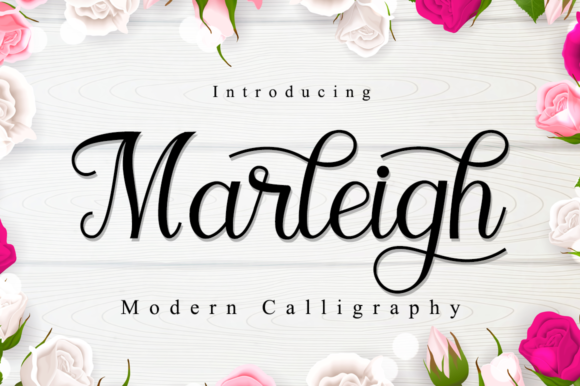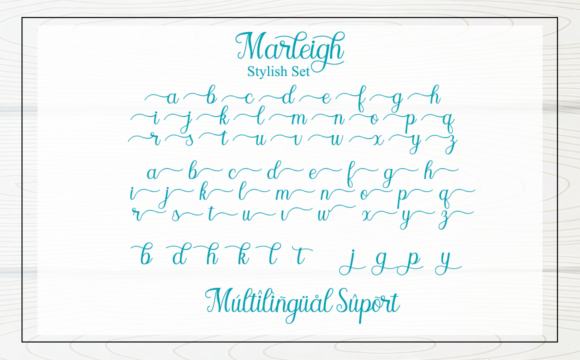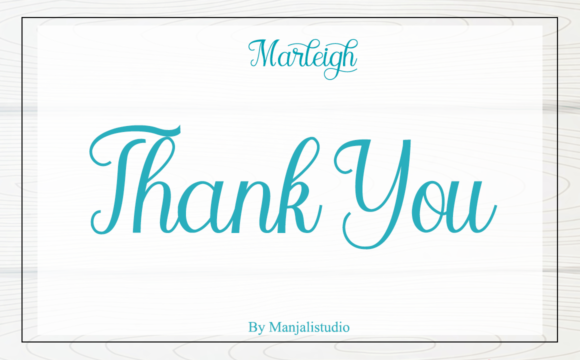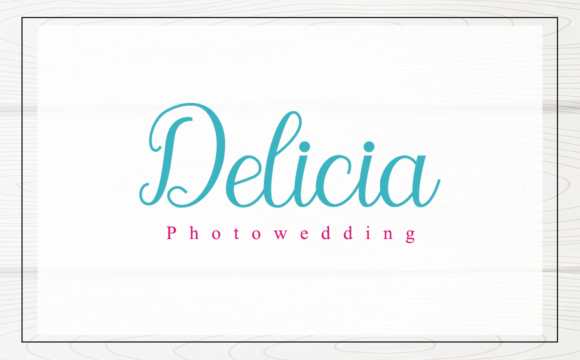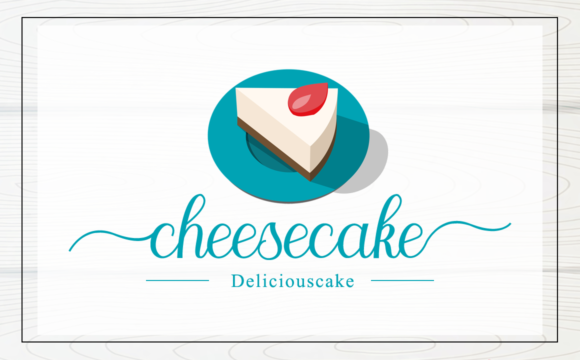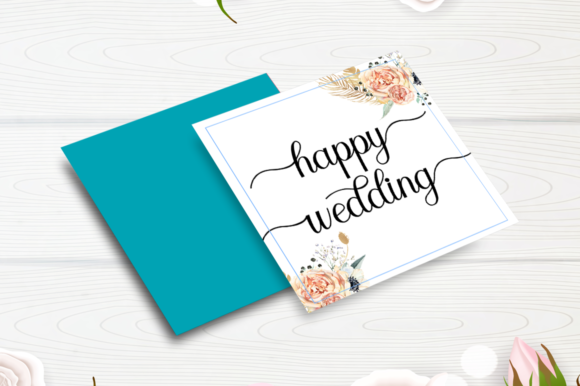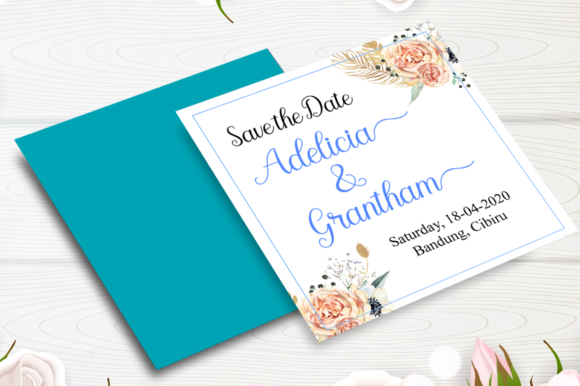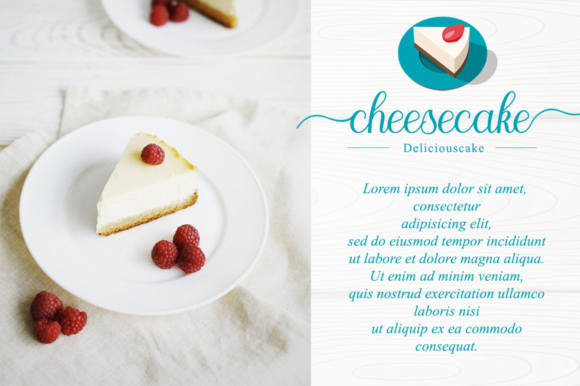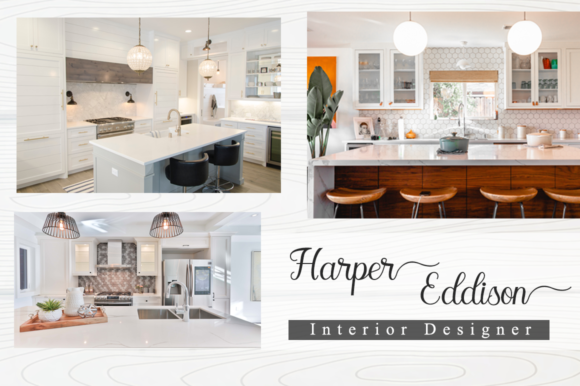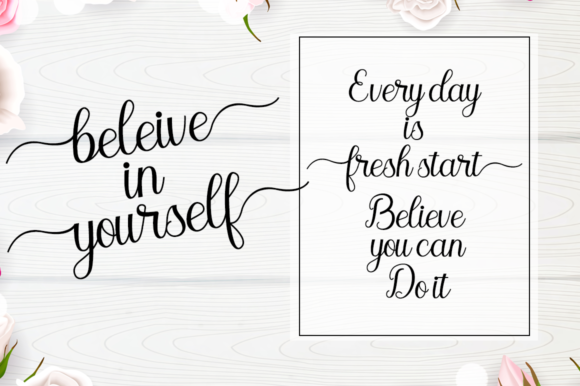
Marleigh Font
About Marleigh Font
Marleigh is a cute and casual handwritten font with an incredibly friendly feel. It features gorgeous swashes and ligatures that make this script incredibly versatile. Whether you’re looking for fonts for Instagram or calligraphy scripts for DIY projects, Marleighwill turn any idea into a true piece of art!